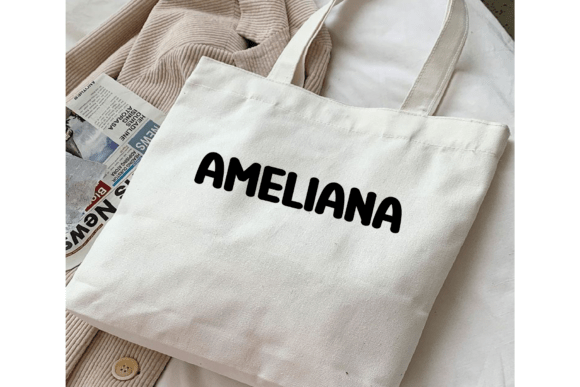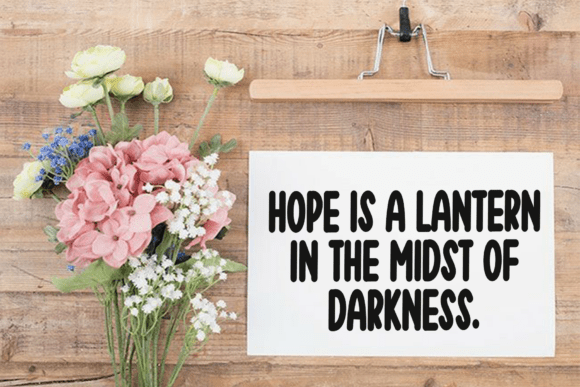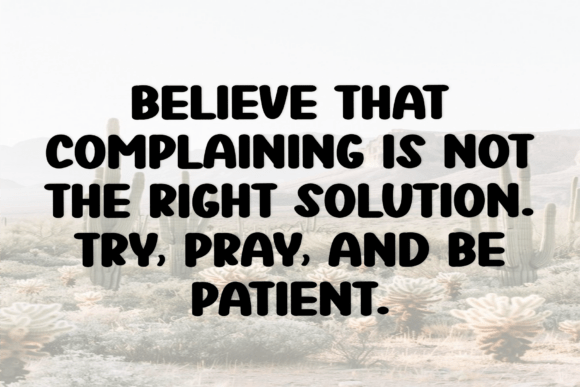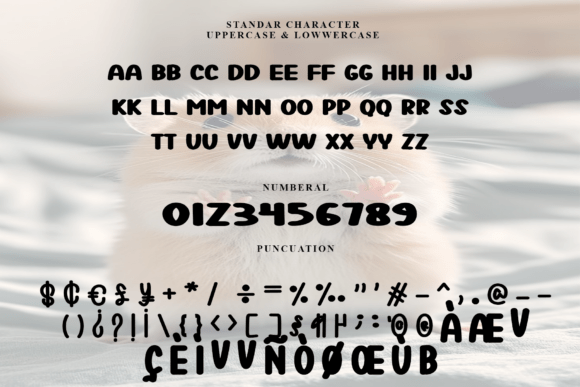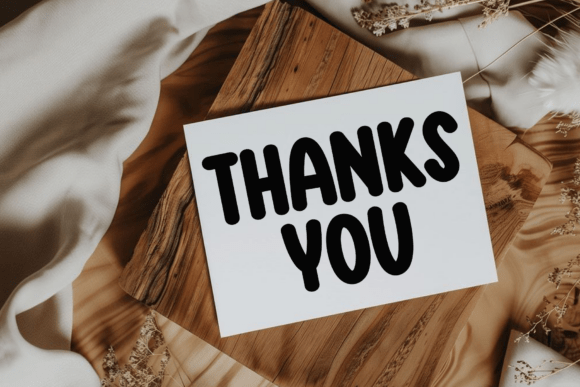
Introducing Hamster Font: The Perfect Blend of Warmth and Personality
In the world of typography, fonts play a crucial role in conveying the tone and personality of a brand or design. If you’re looking for a font that exudes warmth, approachability, and a touch of playfulness, look no further than Hamster Font. This casual display font is designed to capture the essence of authentic handwriting with a modern twist, making it perfect for a wide range of design applications.
The Characteristics of Hamster Font
Hamster Font boasts smooth strokes, natural curves, and easy-flowing letterforms that give it a unique and charming personality. The font’s design is inspired by the imperfections and quirks of handwriting, making it feel approachable and relatable. The smooth strokes and rounded edges create a soft, friendly feel that’s perfect for designs that require a personal touch.
What Makes Hamster Font So Versatile?
One of the standout features of Hamster Font is its versatility. The font is suitable for a wide range of design applications, from quotes and invitations to branding and social media posts. Its effortless style and charming character make it easy to pair with other fonts, allowing designers to create visually appealing and cohesive designs.
Hamster Font is a dream come true for designers and crafters who want to add a personal touch to their work. Whether you’re creating custom invitations, designing social media graphics, or developing a brand identity, this font is sure to impress. Its readability and charm make it perfect for designs that require a friendly and approachable tone.
Key Benefits of Using Hamster Font
- Warm and inviting personality: Hamster Font radiates warmth and approachability, making it perfect for designs that require a friendly tone.
- Smooth strokes and natural curves: The font’s smooth strokes and natural curves create a soft, rounded feel that’s easy on the eyes.
- Effortless style: Hamster Font has an effortless style that’s perfect for designs that require a relaxed, casual vibe.
- Versatile character: The font’s versatile character makes it easy to pair with other fonts, allowing designers to create visually appealing designs.
- High readability: Hamster Font is designed to be highly readable, making it perfect for designs that require clear communication.
How to Use Hamster Font in Your Designs
Using Hamster Font in your designs is easy. Here are a few tips to get you started:
- Pair it with bold fonts: Pair Hamster Font with bold fonts to create a striking contrast that adds visual interest to your designs.
- Use it for headings and titles: Hamster Font is perfect for headings and titles, where its unique personality can shine.
- Add a personal touch: Use Hamster Font to add a personal touch to your designs, whether you’re creating custom invitations or social media graphics.
In conclusion, Hamster Font is a unique and charming display font that’s perfect for designers and crafters who want to add a personal touch to their work. Its smooth strokes, natural curves, and effortless style make it a versatile font that’s suitable for a wide range of design applications. Whether you’re creating custom invitations, designing social media graphics, or developing a brand identity, Hamster Font is sure to impress.
Get Ready to Fall in Love with Hamster Font